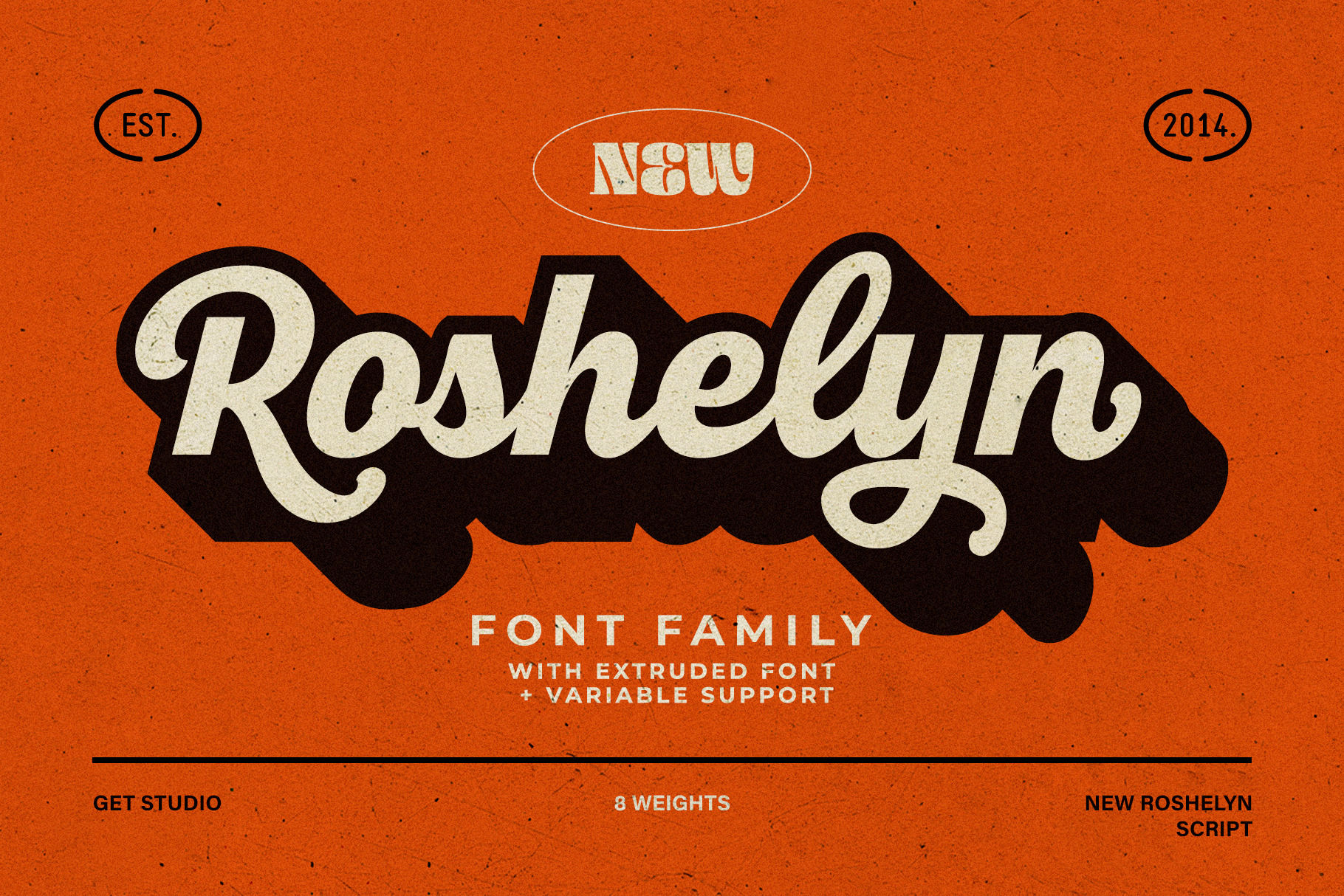
New Roshelyn Script - Font Family
Introducing New Roshelyn Font Family, a new carefully crafted and nicely balanced curve on script typefaces with personality. Also with Extrude Version and Swash Tail make it look Retro. You can use it as a logo, badge, insignia, packaging, headline, poster, t-shirt/apparel, greeting card, wedding invitation, etc.
The flowing characters are ideal to make an attractive message. Mix and match New Roshelyn Script with a bunch of weights and alternative characters to fit your project.